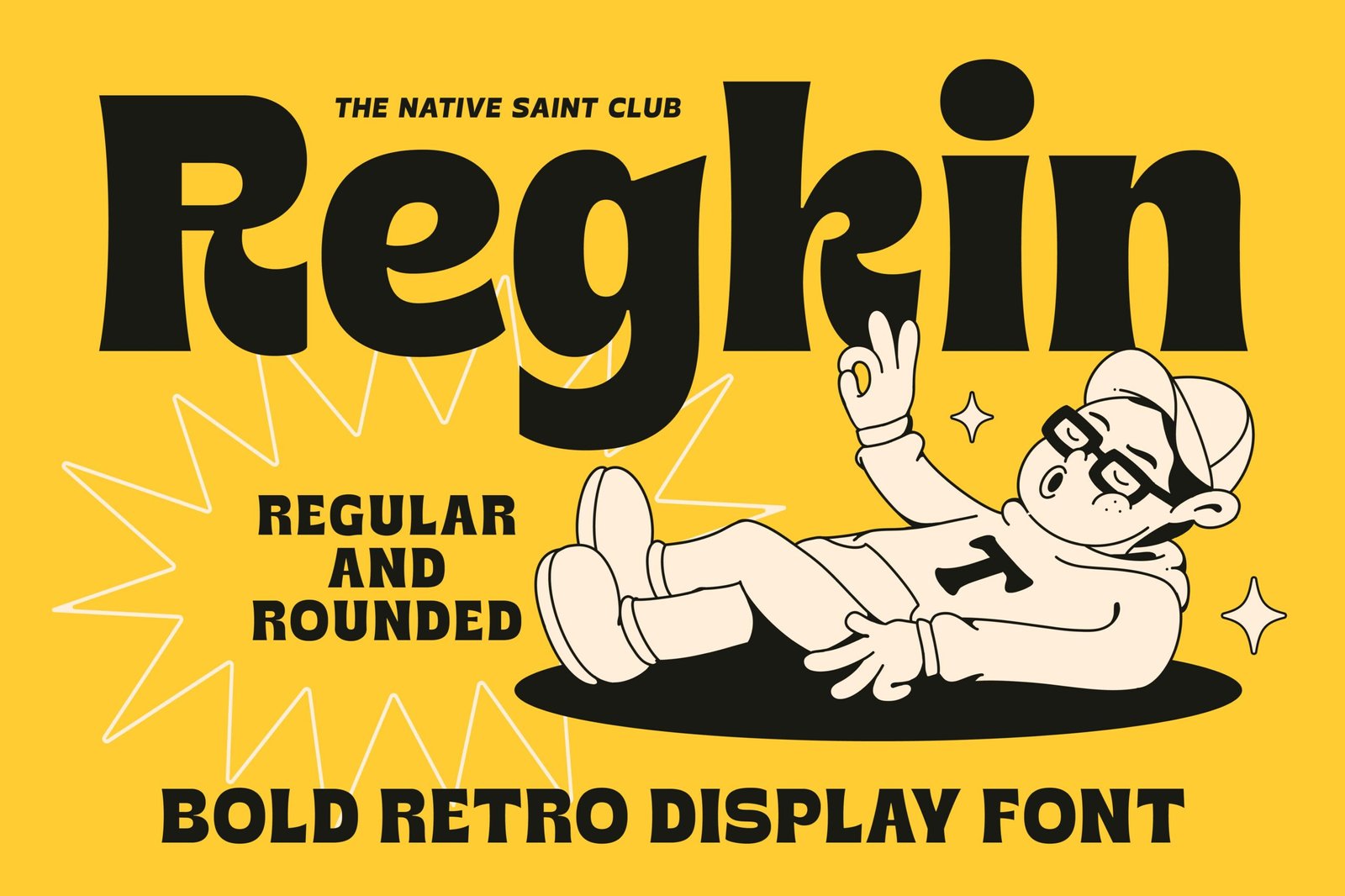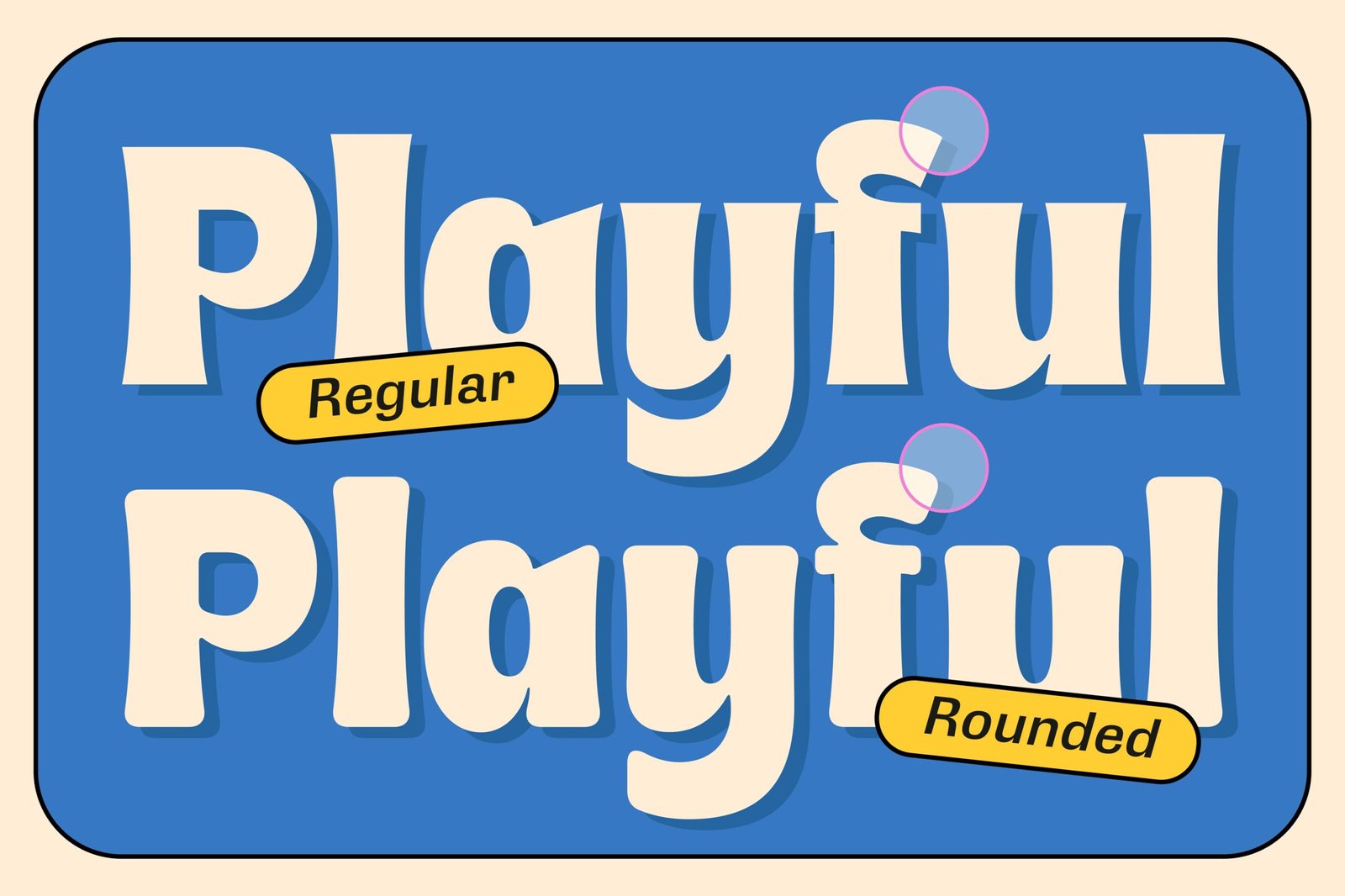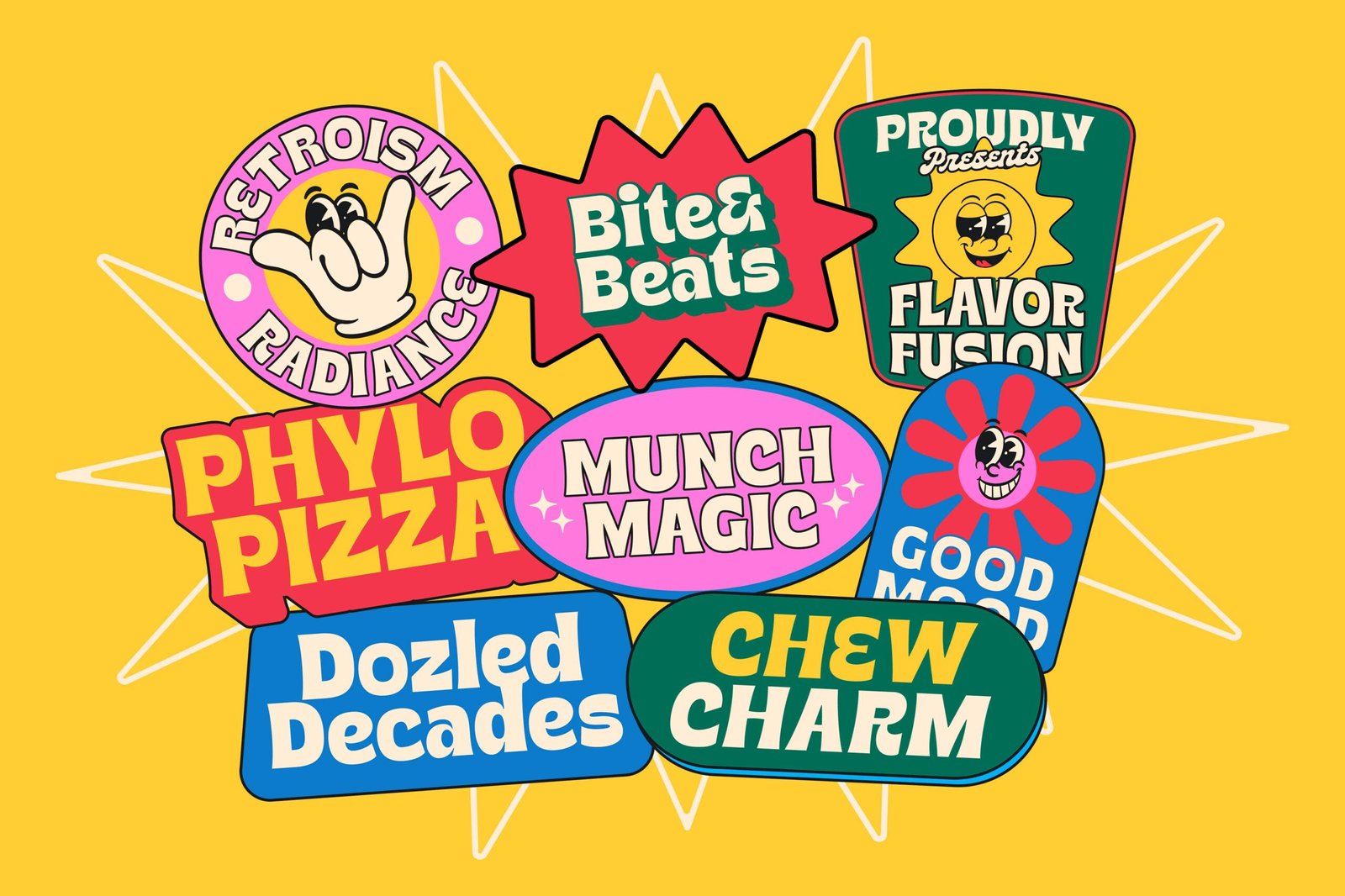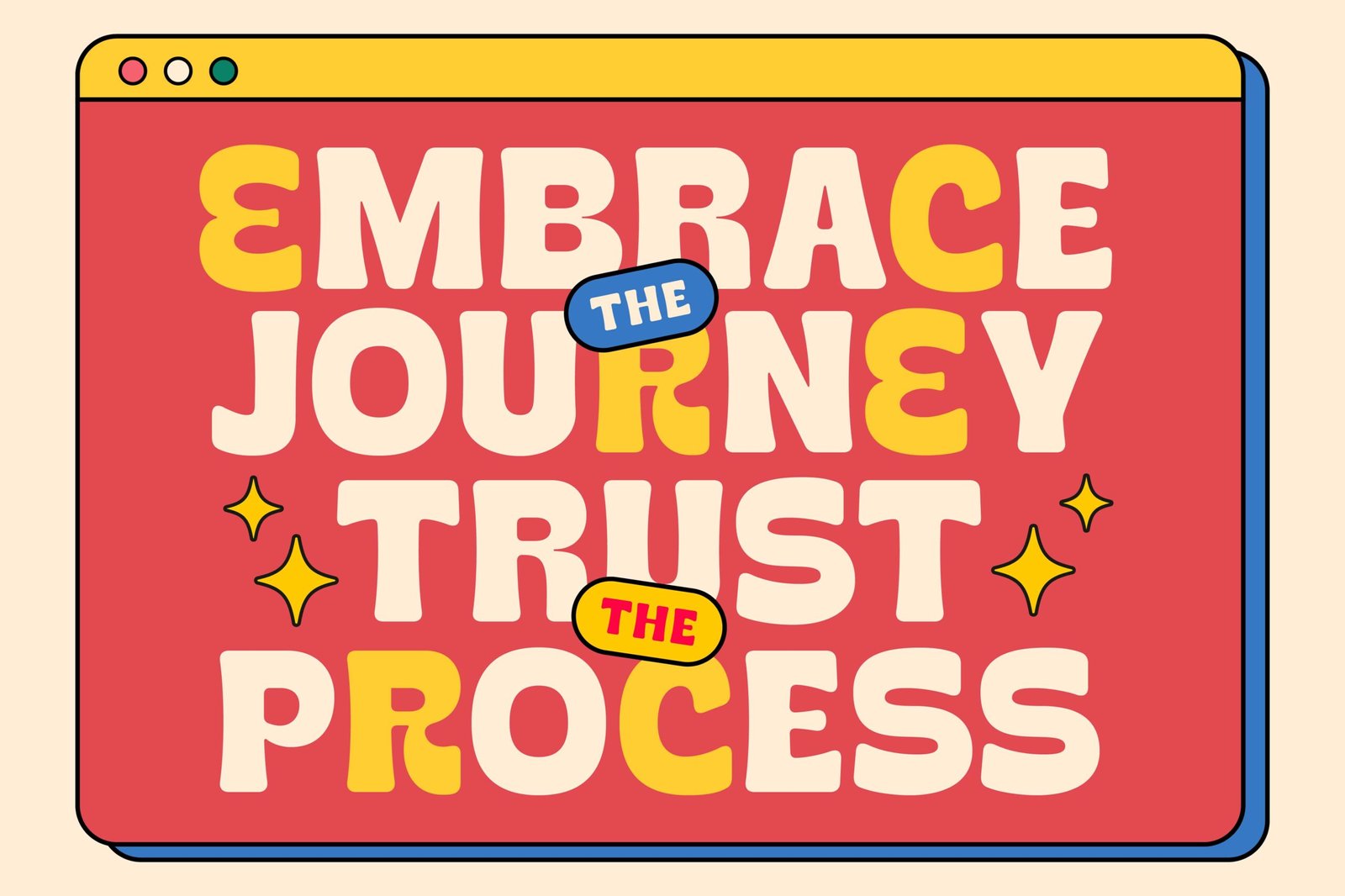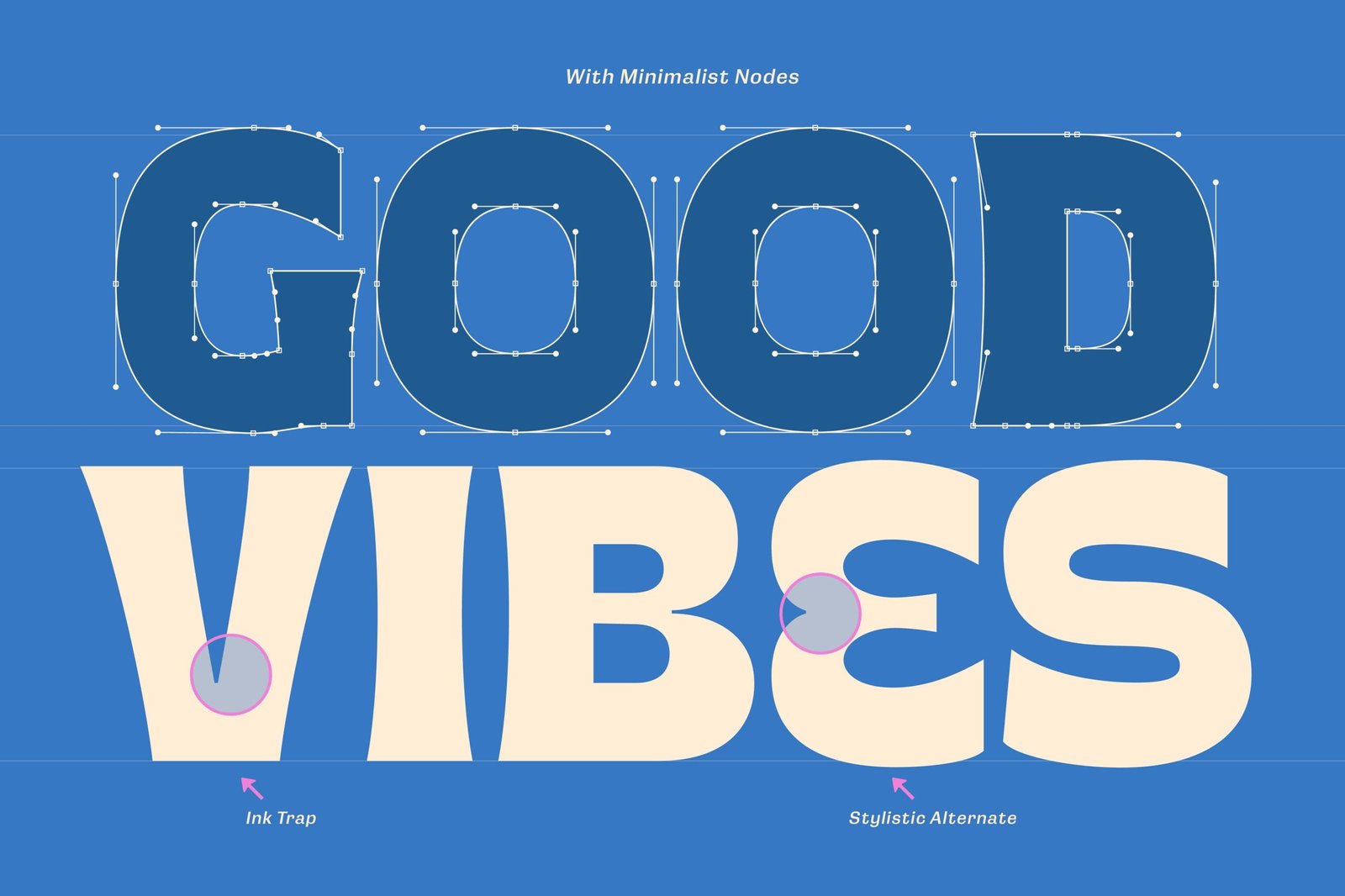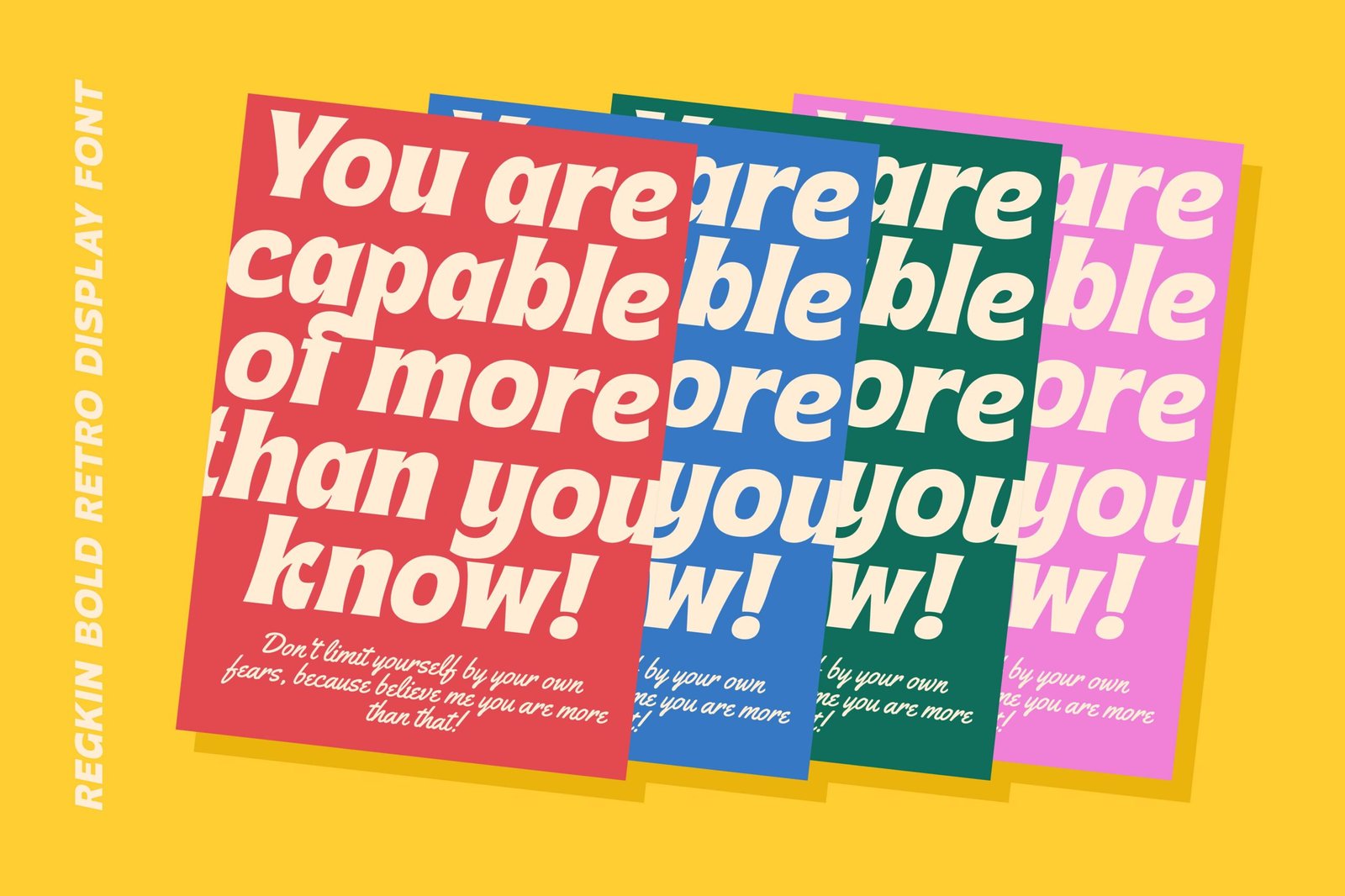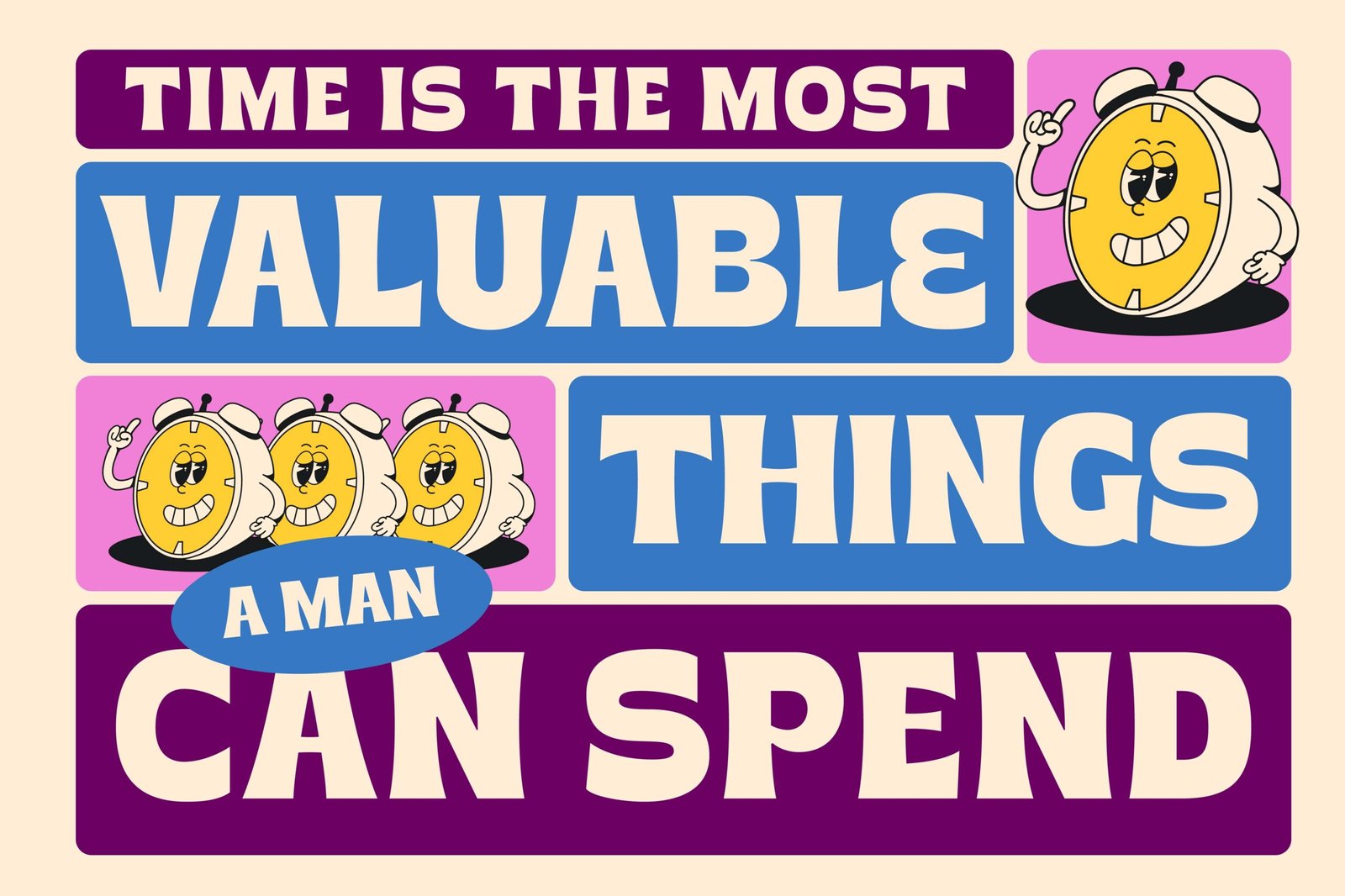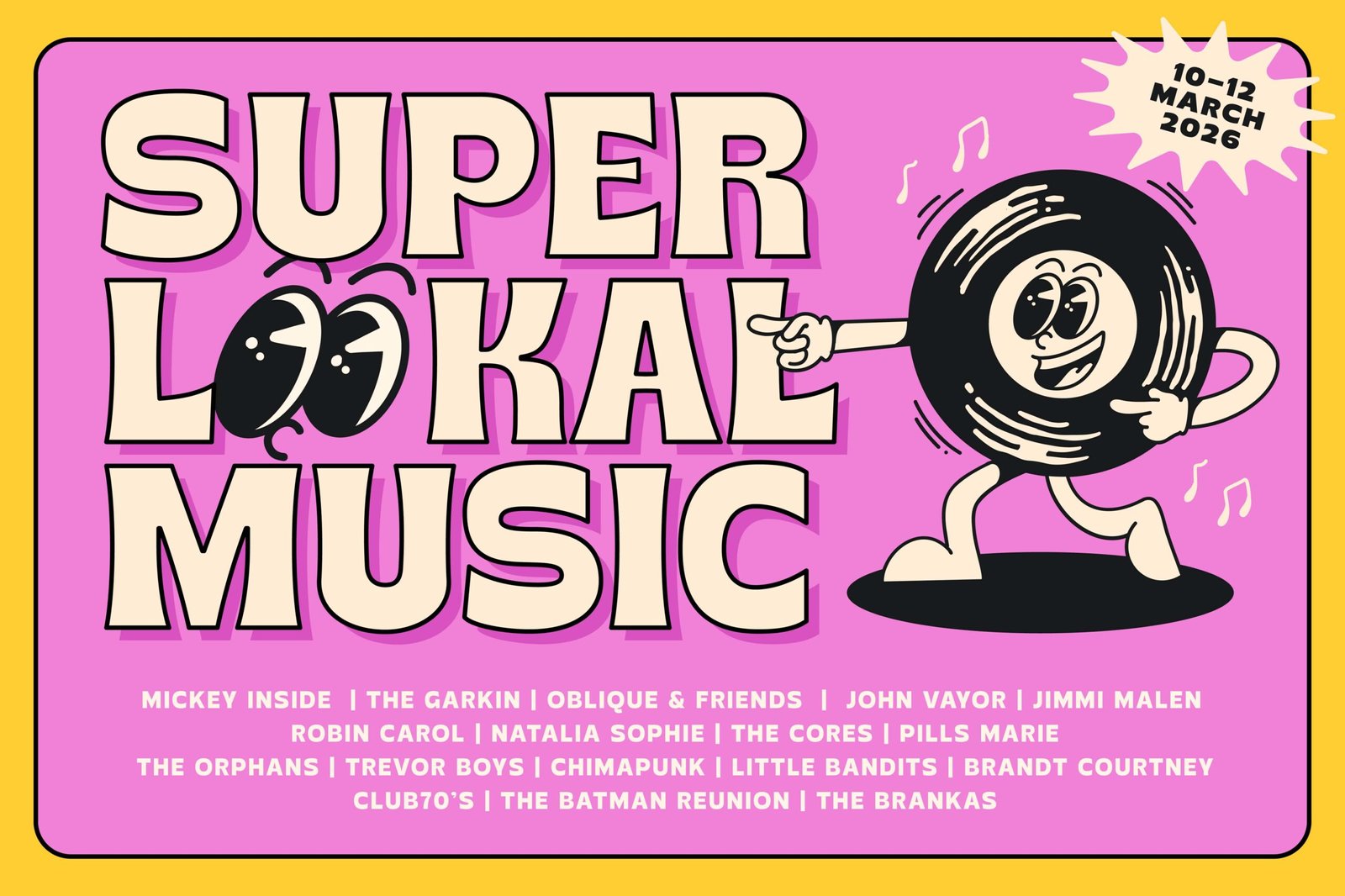
Regkin - Display Font
Regkin Regular
Regkin Rounded
TNSC Regkin – Retro display typeface that comes in two styles, Regular and Rounded. This cheerful, bold retro font is very suitable for design posters, headlines, concert music posters, and other large print formats. Inspired by design styles that are currently popular, and this font is here to be your choice.